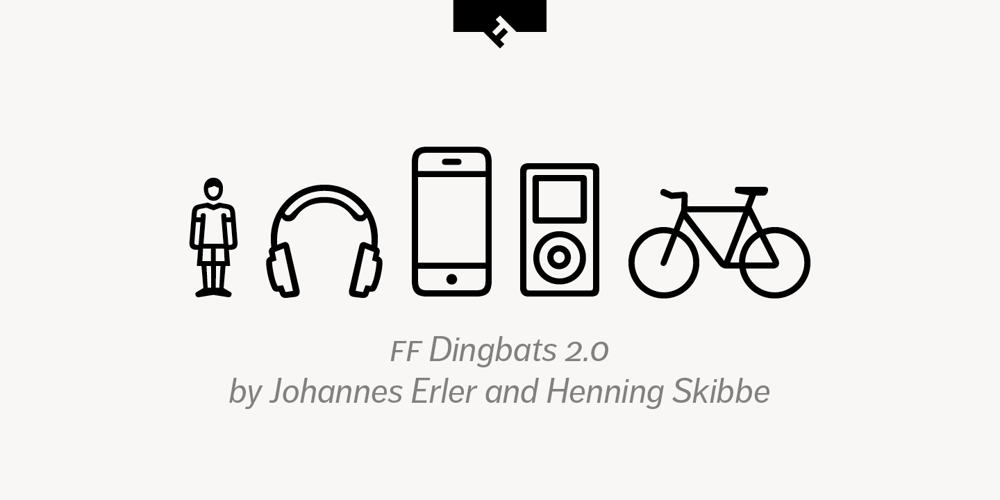
FF Dingbats 2.0
FF Dingbats 2.0 Font Family was designed by Johannes Erler, Olaf Stein, Henning Hartmut Skibbe and published by FontFont. FF Dingbats 2.0 contains 14 styles and family package options. German type designers Johannes Erler and Henning Skibbe created this pi and symbols FontFont in 2009. The family has 12 weights and was one of the first symbol typeface for a new generation.It has one of the largest collections of contemporary symbols and icons for office communication.